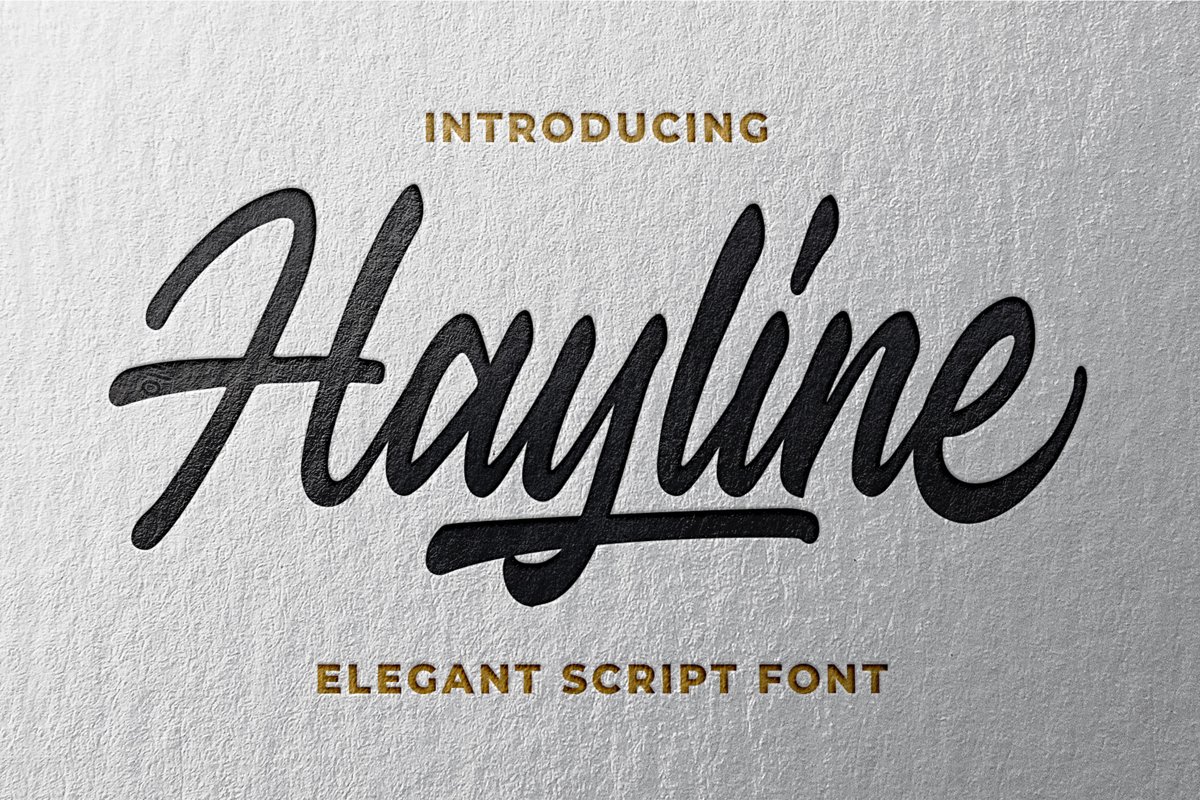
Introducing of our new product the name is Hayline Elegant Script Font. Hayline inspired by Clean Brush calligraphy this font is a fun theme very good for signature, poster, fashion, wedding, branding etc
MULTILINGUAL ACCENT :ŽžŠŒšŸÀÁÂÃÄÅÆÇÈÉÊËÌÍÎÏÐŁÑÒÓÔÕÖØÙÚÛÜÝßàáâãäåæçèéêëìíîïłñòóôõöøùúûüýÿ